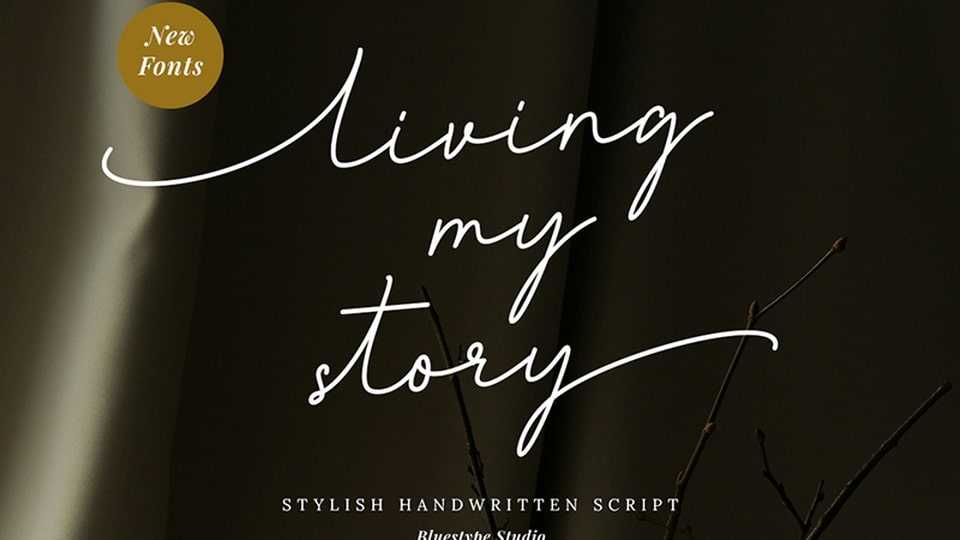
Download Living My Story font, an elegant and luxurious handwritten script typeface designed to bring sophistication, beauty, and premium charm to every project.